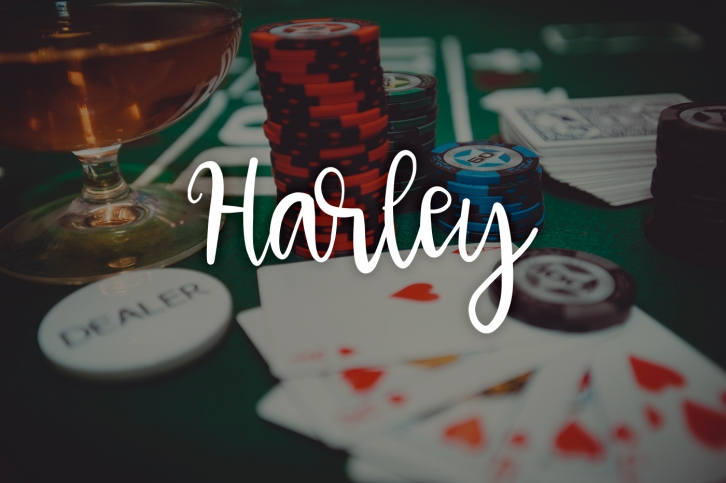
Harley is a great font that was designed by On The Spot Studio. Imagine the amount of combinations you can create using this font! The archive is 7.88 MB and it was released on August 16, 2016. Harley looks beautiful on wedding invitations, greeting cards, logos, posters, labels, t-shirt designs, logos, business cards and is perfect for use in ink or watercolor works, fashion, magazines, packaging and food menus, children's books and more!